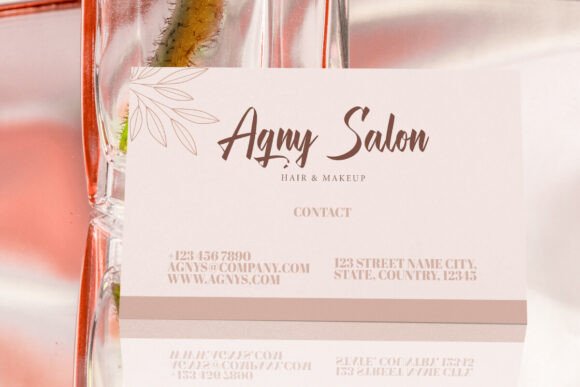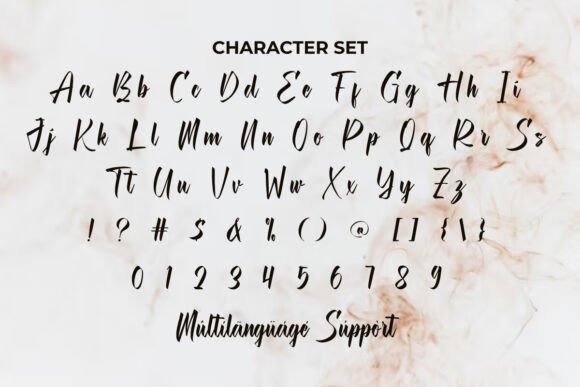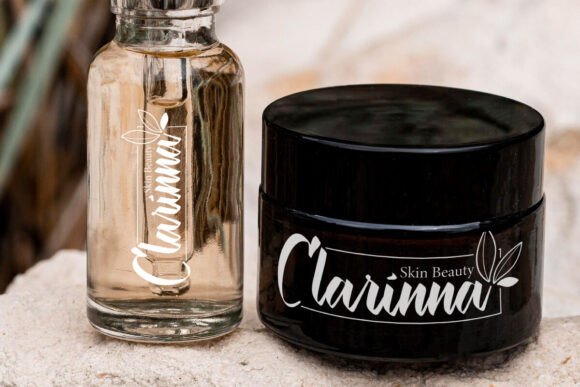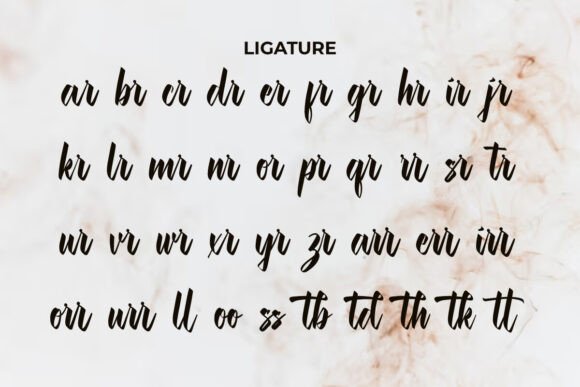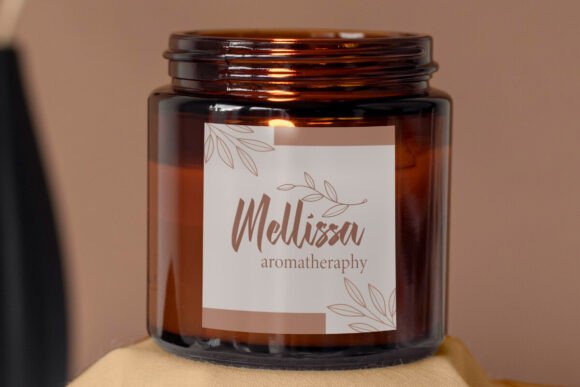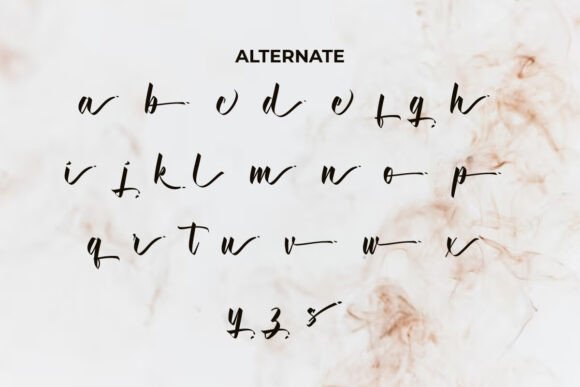
Blethers Font: Elevate Your Design with Elegance and Sophistication
In the world of typography, fonts play a crucial role in conveying the tone and personality of a design. For designers and crafters seeking a font that exudes elegance, sophistication, and a touch of femininity, Blethers Font is an exceptional choice. This beautiful script font is meticulously crafted to bring a personal touch to various design projects, making it perfect for a wide range of applications.
The Charm of Blethers Font
Blethers Font is a feminine script font that embodies the charm of calligraphy style, characterized by its beautiful, elegant characters and bold, stylish contrasting strokes. The font’s unique design makes it stand out, adding a touch of sophistication to any design project. The addition of ligature characters and alternative styles further enhances the font’s artistic value, allowing designers to explore limitless creativity.
Handmade with Love: The Personal Touch
What sets Blethers Font apart is its handmade nature, which gives it a personal touch that is hard to find in digital fonts. The character of the letters is designed to imitate the beauty of human writing, making each piece of text feel unique and special. This quality makes Blethers Font perfect for designs that require a personal touch, such as book titles, invitation cards, labels, logo designs, product packaging, and more.
Blethers Font is a versatile typeface with a modern aesthetic, making it suitable for a wide range of design projects. Its elegance and sophistication make it perfect for combining with sans or serif fonts, creating a harmonious and visually appealing design. Whether you’re designing for social media, stationery, stickers, websites, or any other medium, Blethers Font is an excellent choice.
Ideal for Various Businesses and Industries
This font is great for various businesses, including:
- Accessories and merchandise
- Bakery
- Beauty clinic
- Cosmetic
- Fashion
- Florist
- Furniture
- Graphic design
- Homeware design
- Hotel
- Jewelry
- Makeup artist
- Restaurant
Blethers Font’s versatility and elegance make it an excellent choice for businesses seeking to elevate their brand’s visual identity.
Design Possibilities with Blethers Font
The design possibilities with Blethers Font are endless. Here are a few ideas to get you started:
- Create stunning book titles and covers that capture readers’ attention.
- Design elegant invitation cards for weddings, parties, and special events.
- Develop eye-catching labels and product packaging that stand out on store shelves.
- Design beautiful logo designs that reflect your brand’s personality.
- Create engaging social media content that resonates with your audience.
- Develop stunning stationery and stickers that showcase your brand’s style.
In conclusion, Blethers Font is a beautiful, elegant, and versatile script font that can elevate your design projects to the next level. Its handmade nature, ligature characters, and alternative styles make it a unique and artistic choice for designers and crafters. With its wide range of applications and design possibilities, Blethers Font is an excellent addition to any designer’s toolkit.